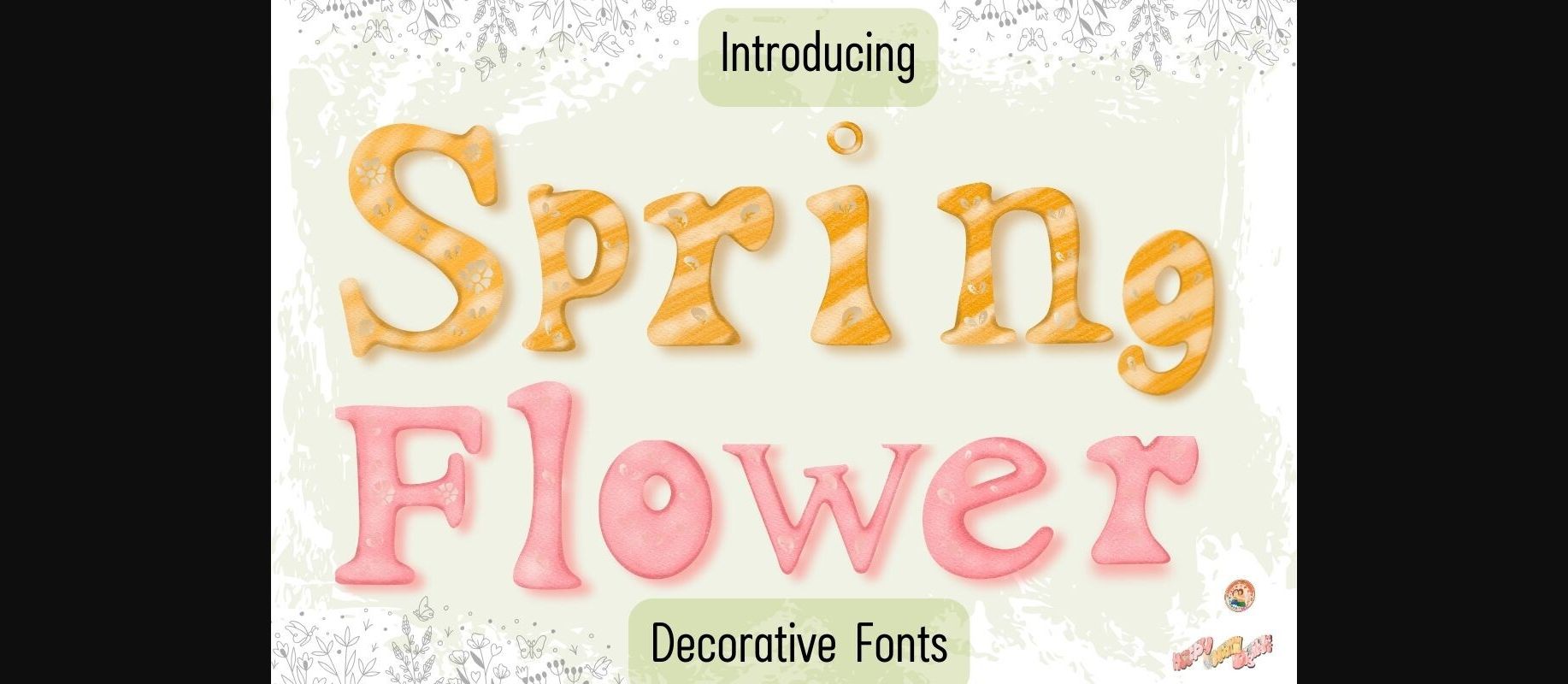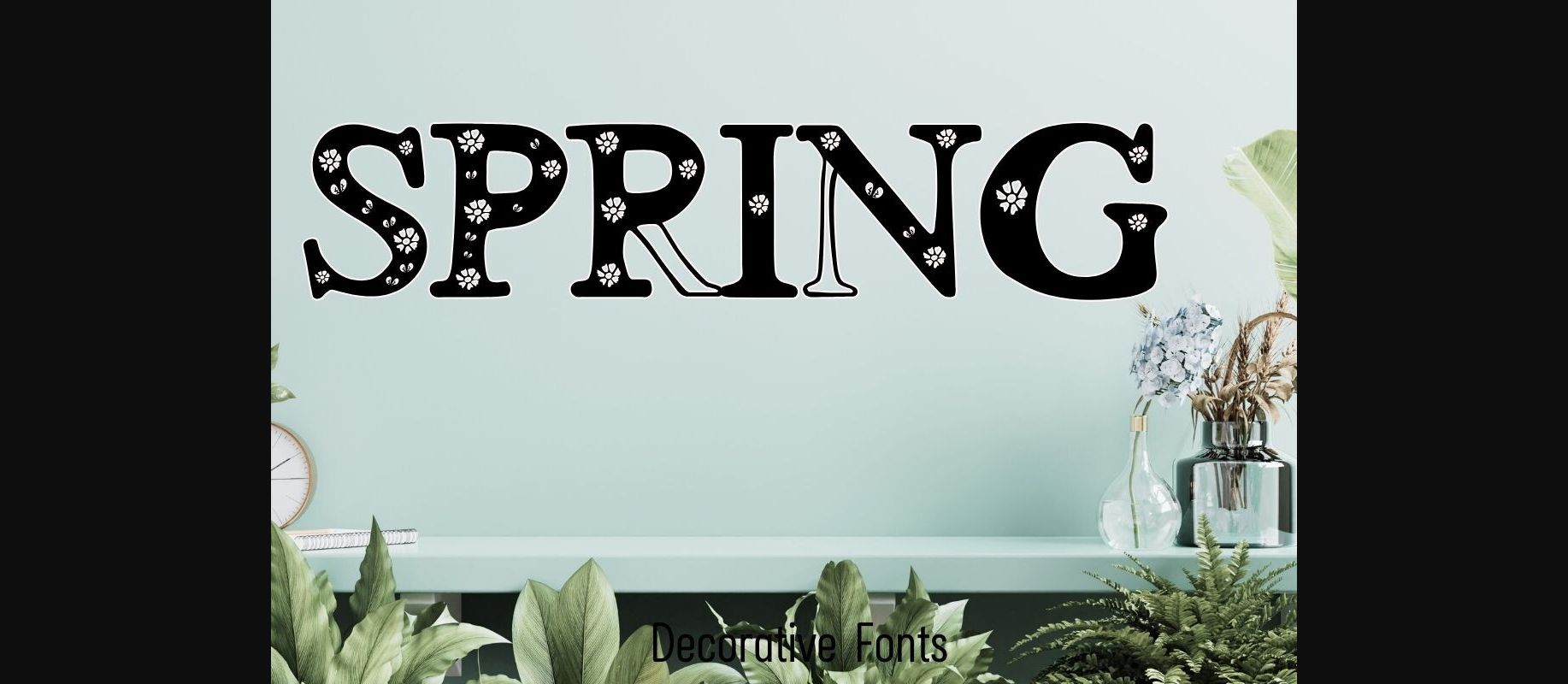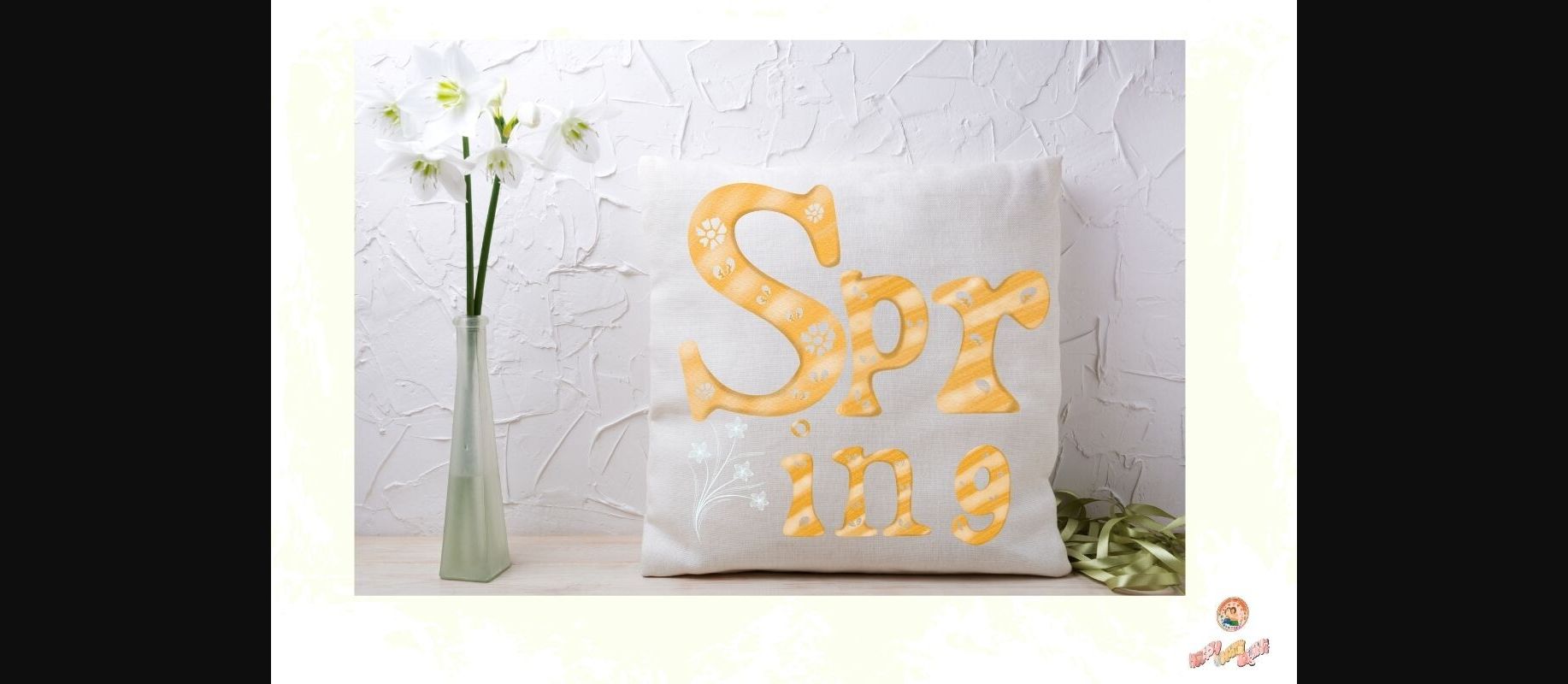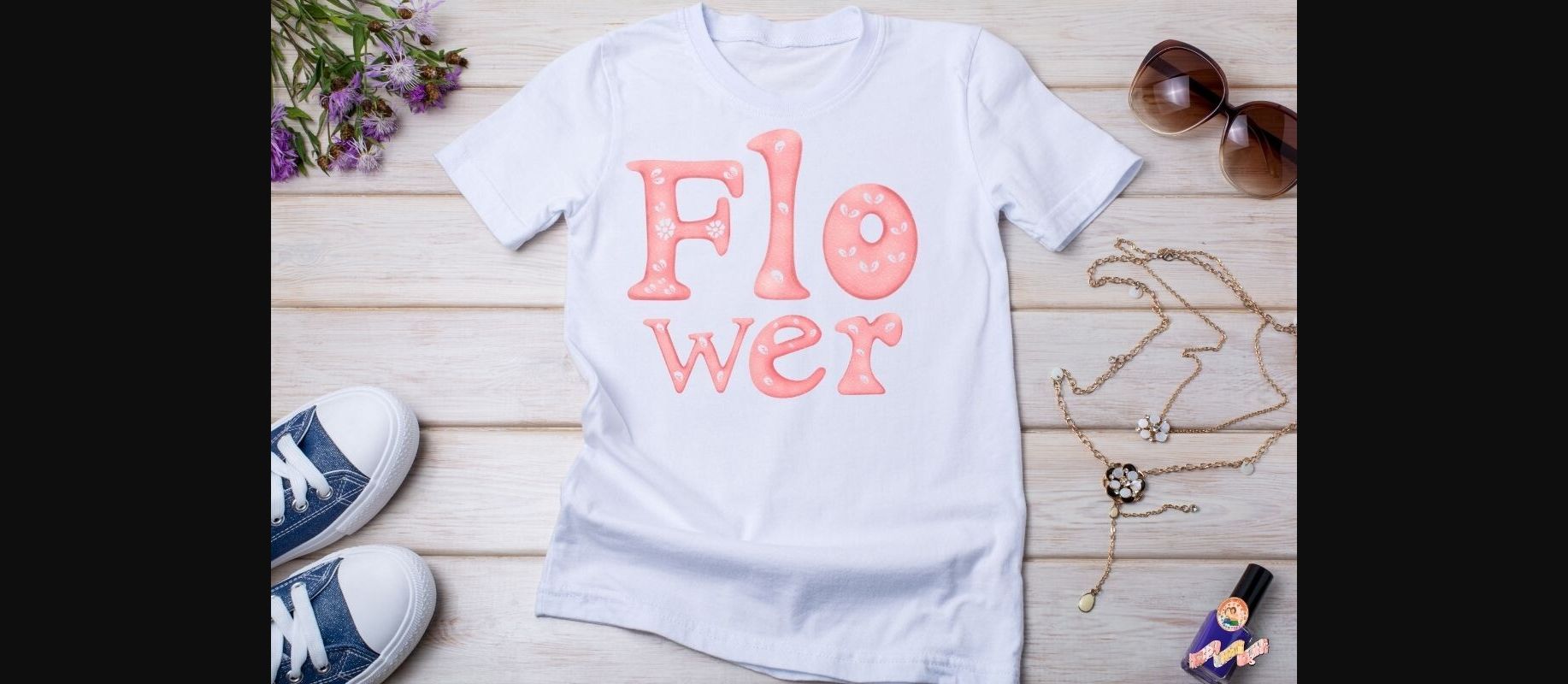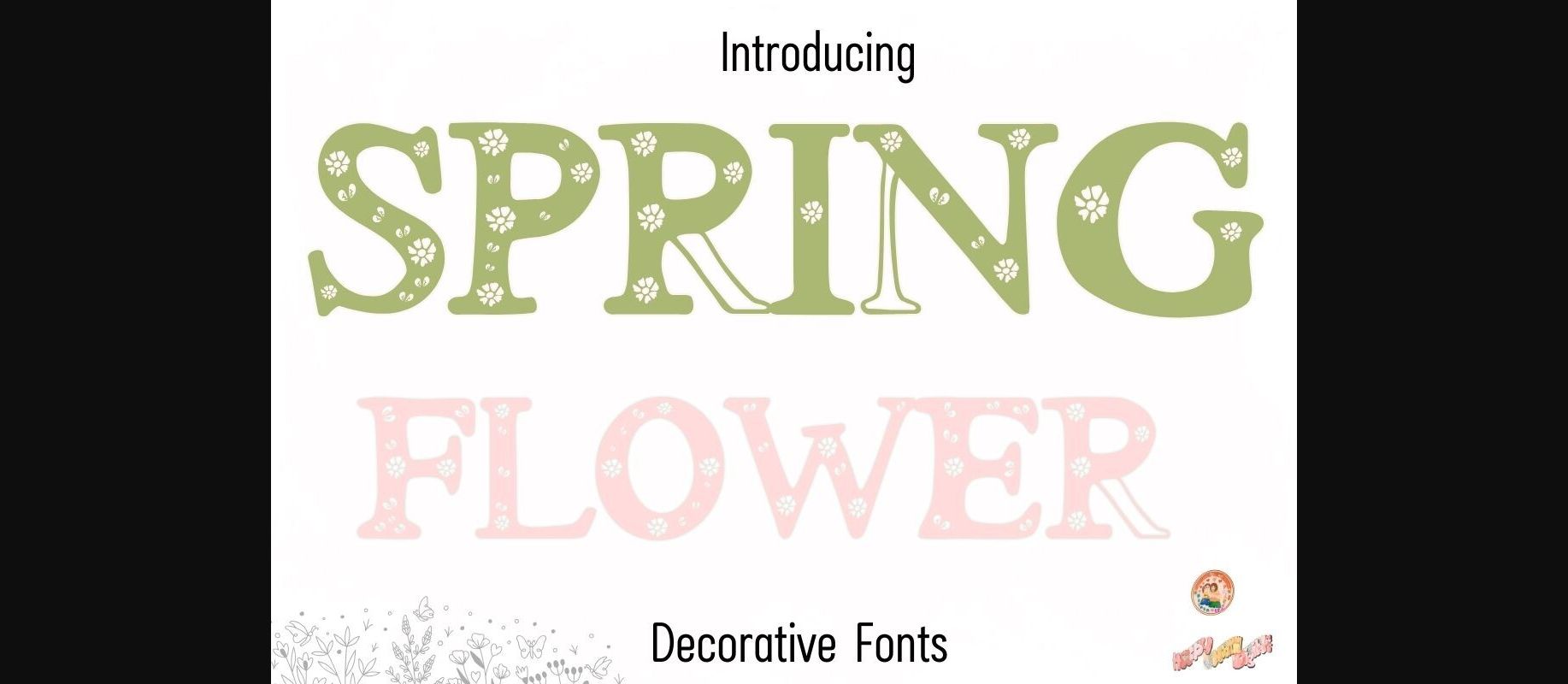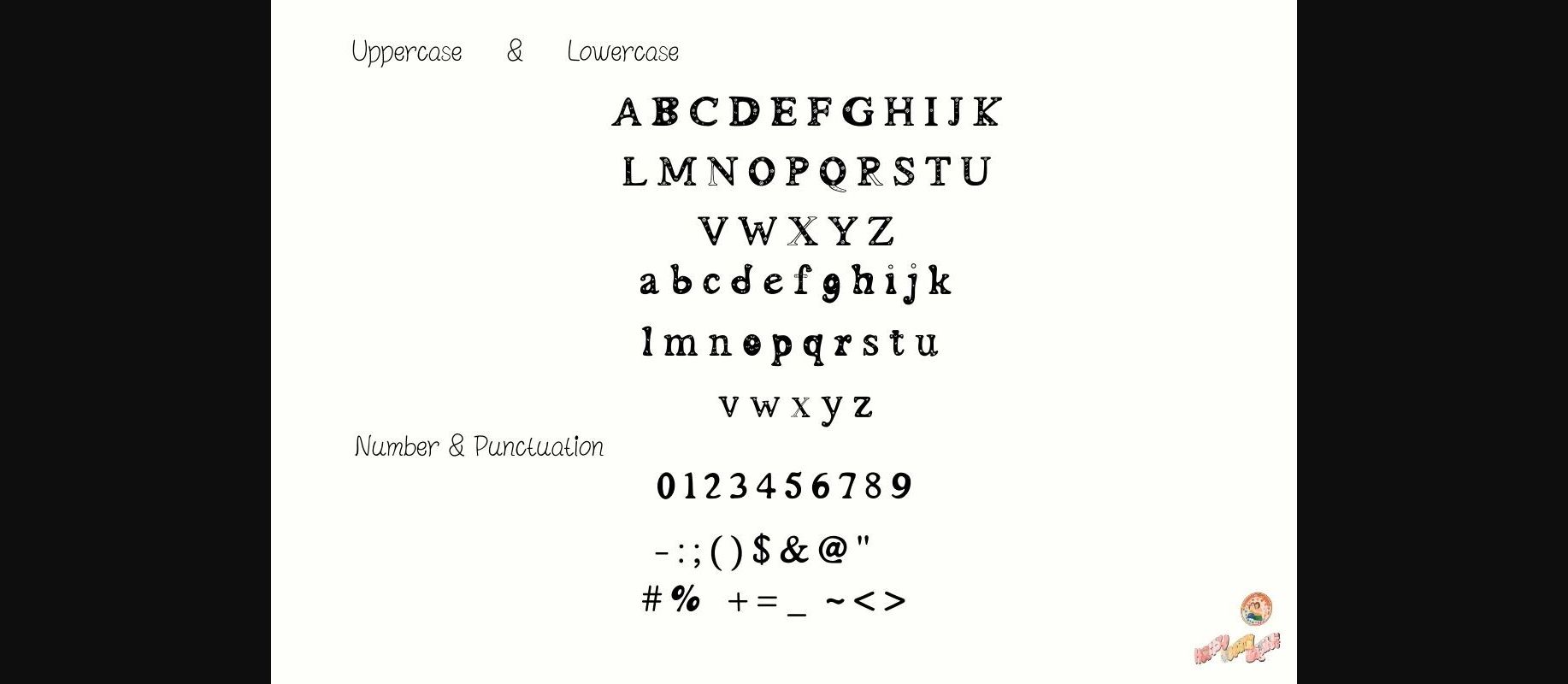
HomeDecorative FontsSpring Flower Font Decorative Fonts Spring Flower Font FacebookXPinterestWhatsApp 1 of 8 ... Spring Flower Font Poster 2... Spring Flower Font Poster 3... Spring Flower Font Poster 4... Spring Flower Font Poster 5... Spring Flower Font Poster 6... Spring Flower Font Poster 7... Spring Flower Font Poster 8... About Spring Flower Font Spring Flower is a lovely and cute decorative font. Whether you’re creating holiday cards, gift tags, or seasonal banners, this font is the ideal choice for spreading joy during the holiday season. DOWNLOAD NOW People also explored June Font Grape Font Gradium Font Sewing Font Larisa Font Thinking Bright Font Grachy Berry Font ZP Zerapeutic Font Front House Font 347 0 TagsSpring Flower Font Previous articleMama FontNext articleSummer Set Font LEAVE A REPLY Cancel reply Comment: Please enter your comment! Name:* Please enter your name here Email:* You have entered an incorrect email address! Please enter your email address here Website: Save my name, email, and website in this browser for the next time I comment. Personal Use Free Love Baby Personal Use Free Read more about this font Unlock Endless Creativity with the FREE September Clipart Huge Bundle (Valued at $700!) Personal Use Free Read more about this font Clumed Personal Use Free Read more about this font Heart Memory Personal Use Free Read more about this font BLOG Using Fonts in Digital Marketing: Tips to Strengthen Your Brand Identity In the realm of digital marketing, every visual element plays a crucial role in shaping a brand's identity, and fonts are no exception. The... To increase your work productivity, choose the most readable fonts. Elegant Wedding Invitation Fonts – Handwritten & Script Fonts Free vs Paid Fonts: Why Investing in Premium Fonts Is Worth It